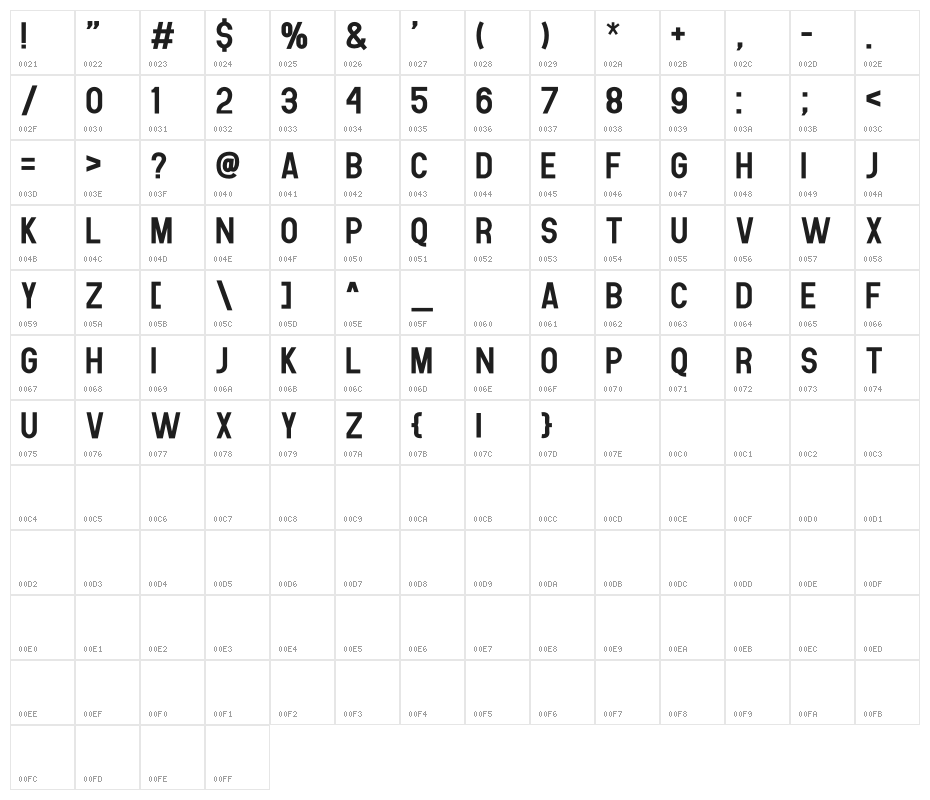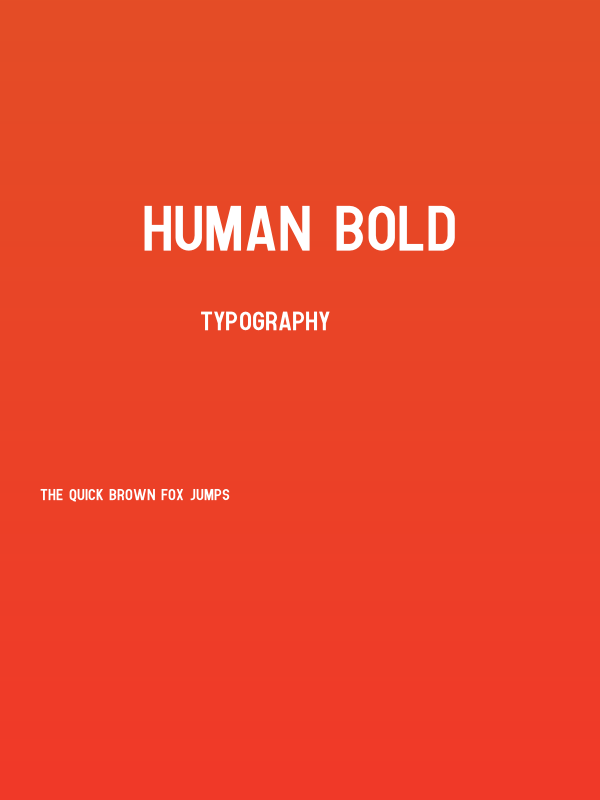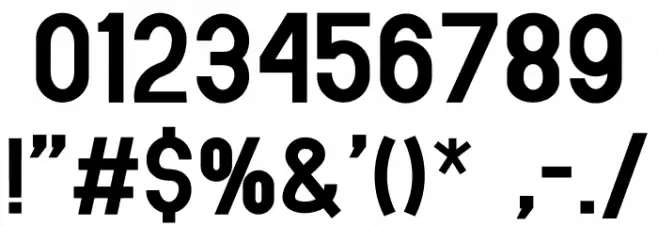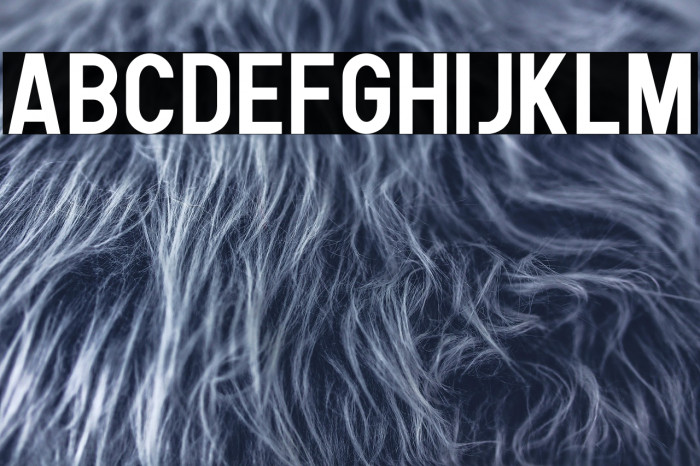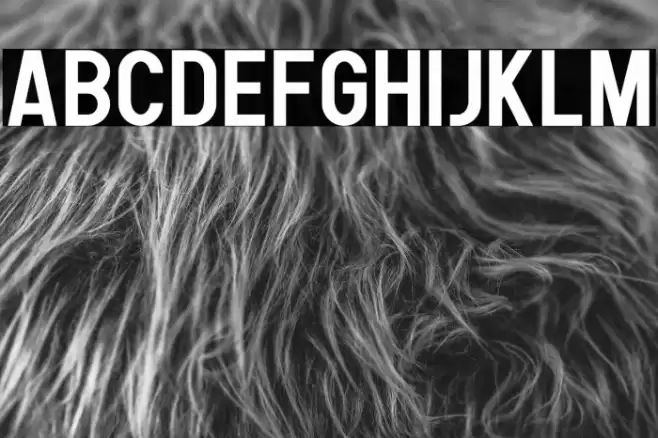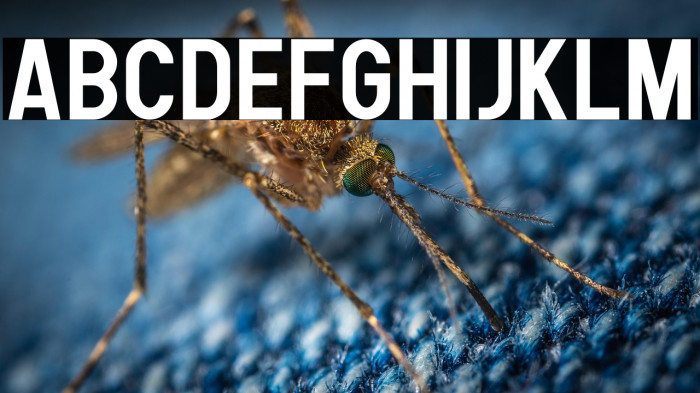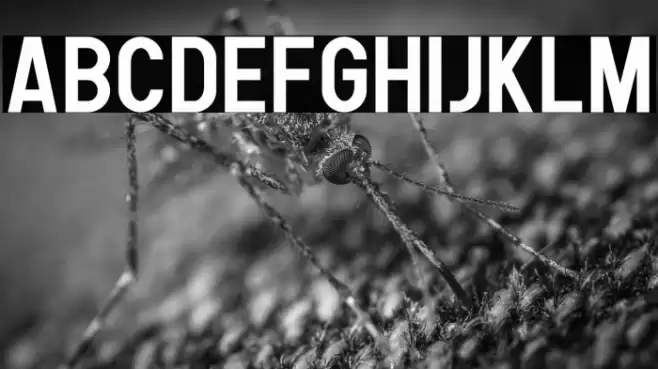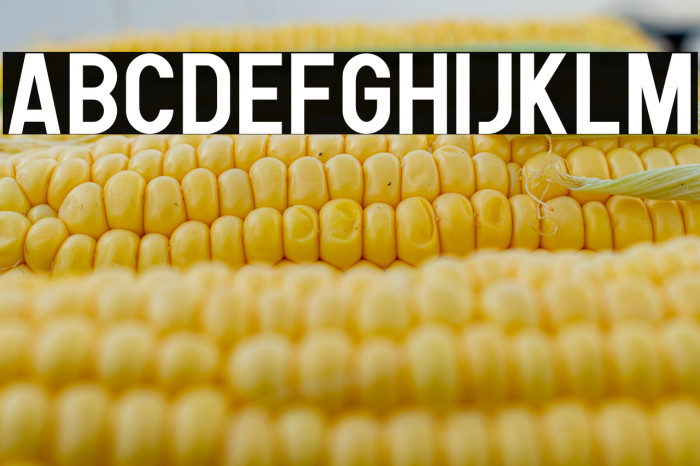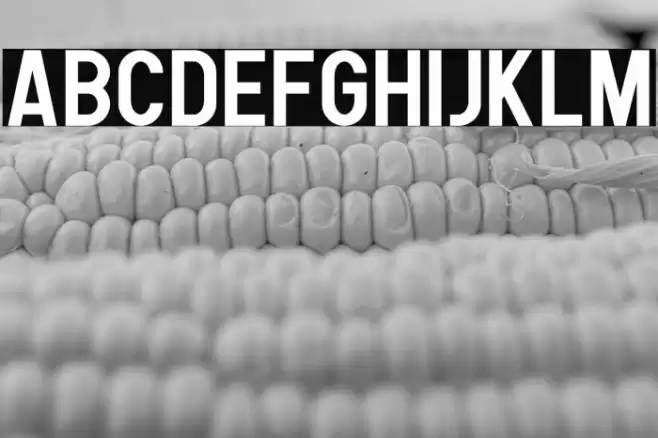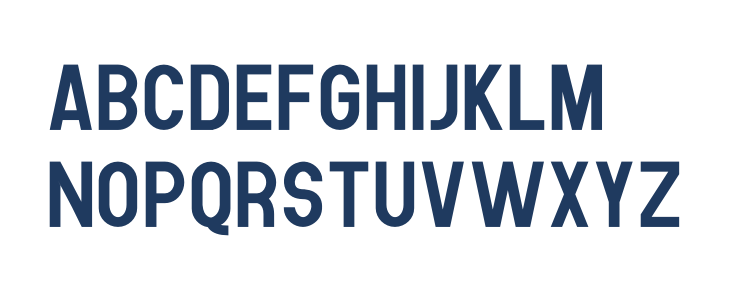
Human Bold Font
Human Bold Description
This font features a bold and assertive style, characterized by its thick strokes and strong presence. The uppercase letters are uniform in height, providing a consistent and balanced appearance. The numbers are equally bold, ensuring clarity and readability. Special characters are designed with the same boldness, making them stand out effectively. The overall design is clean and modern, suitable for making a strong visual impact.
| Proposed Projects | Ideal for headlines, posters, branding materials, and any project requiring a bold statement. |